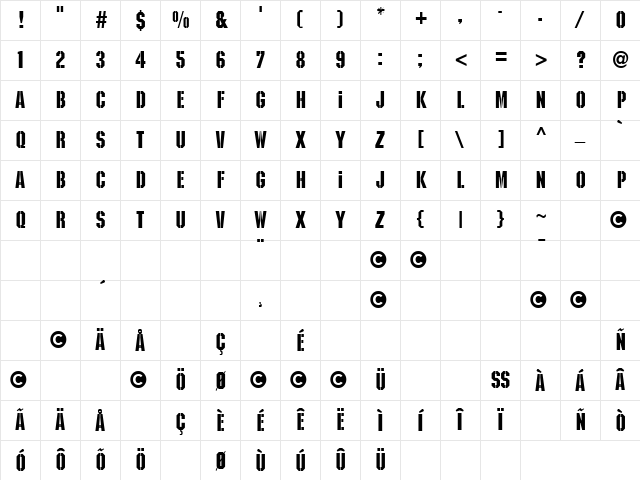
Complete Kaiser Regular glyph index. Displaying only characters natively supported by Kaiser Regular font.
Kaiser is a composed and adaptable typeface that performs quietly and consistently across a wide range of design contexts.